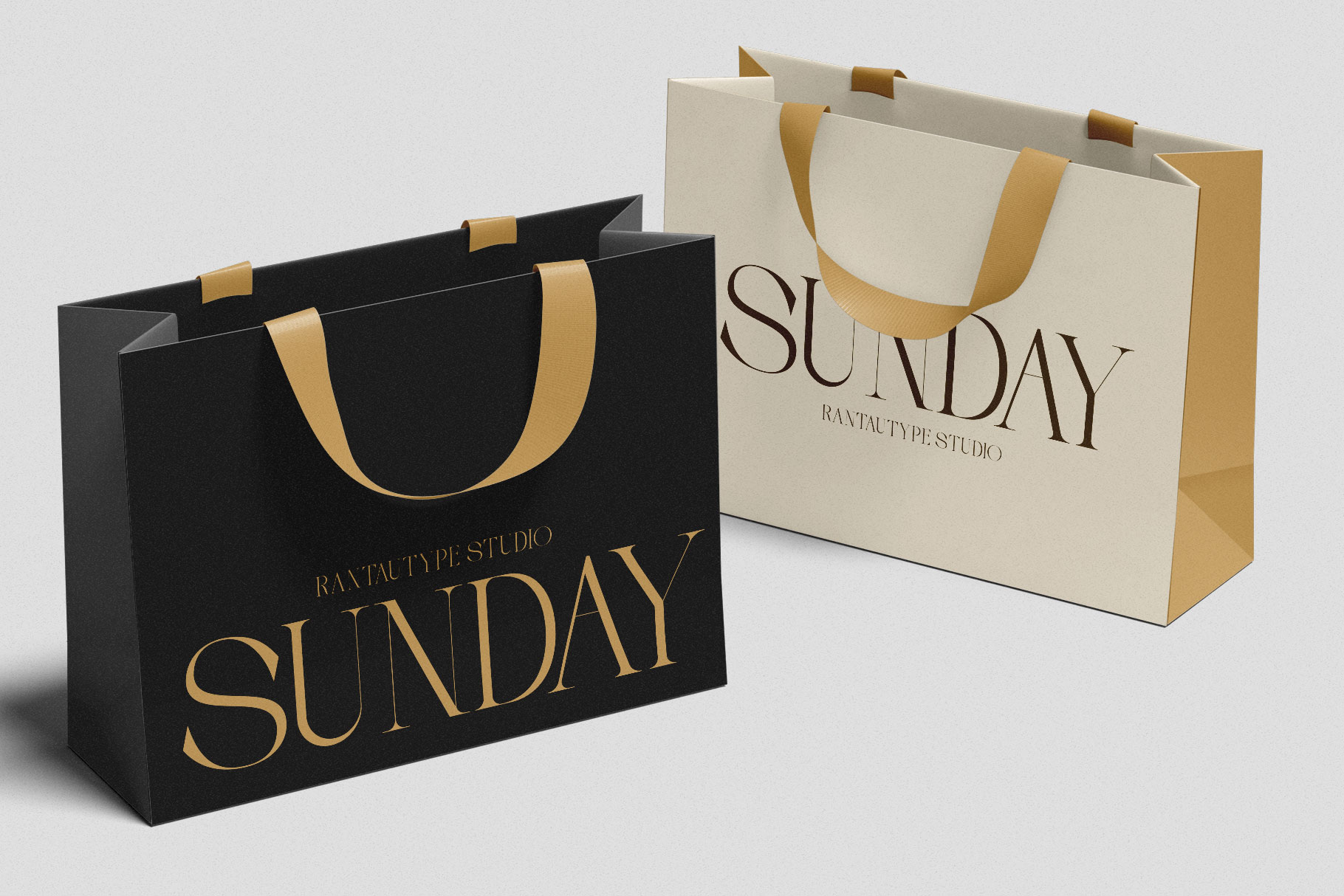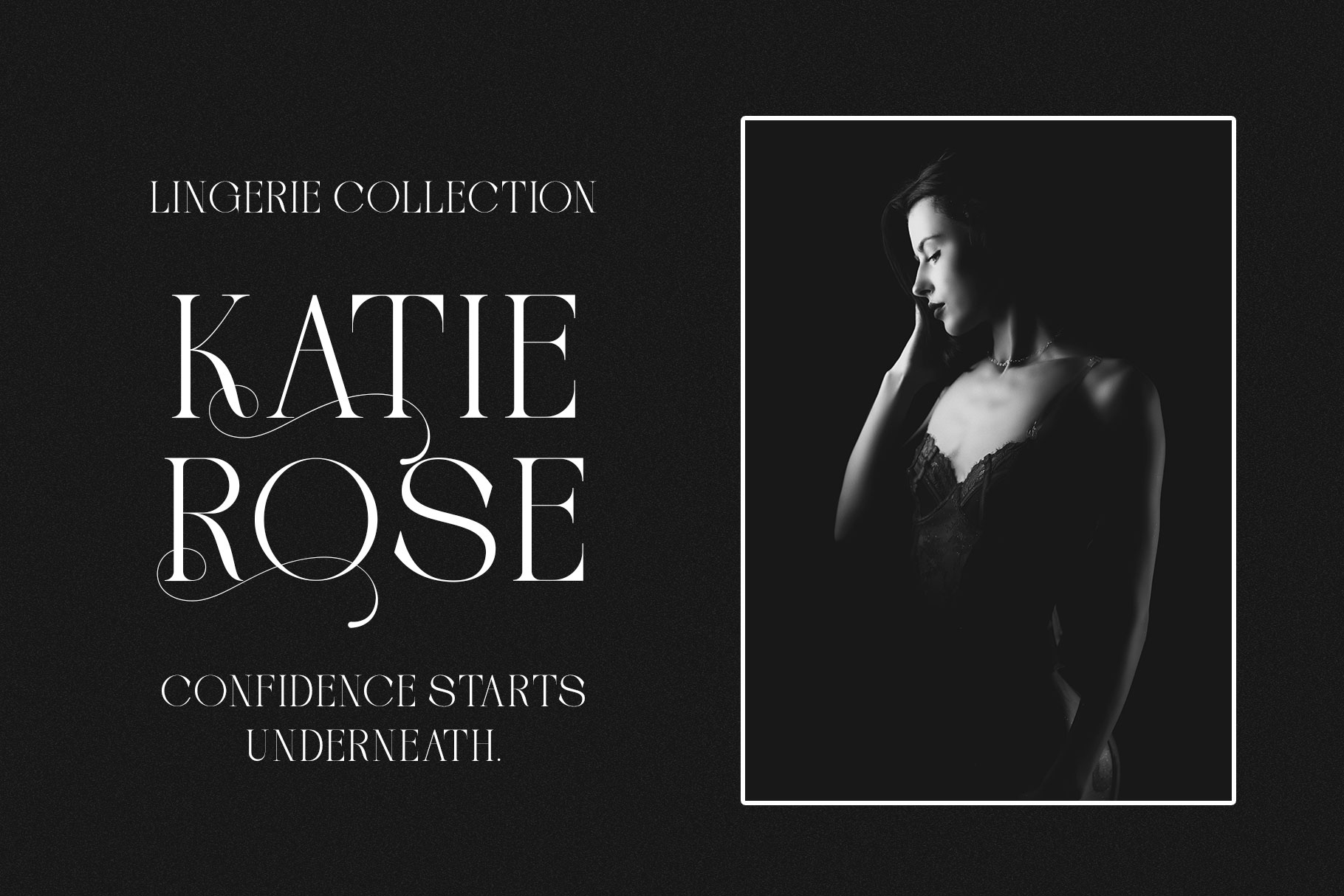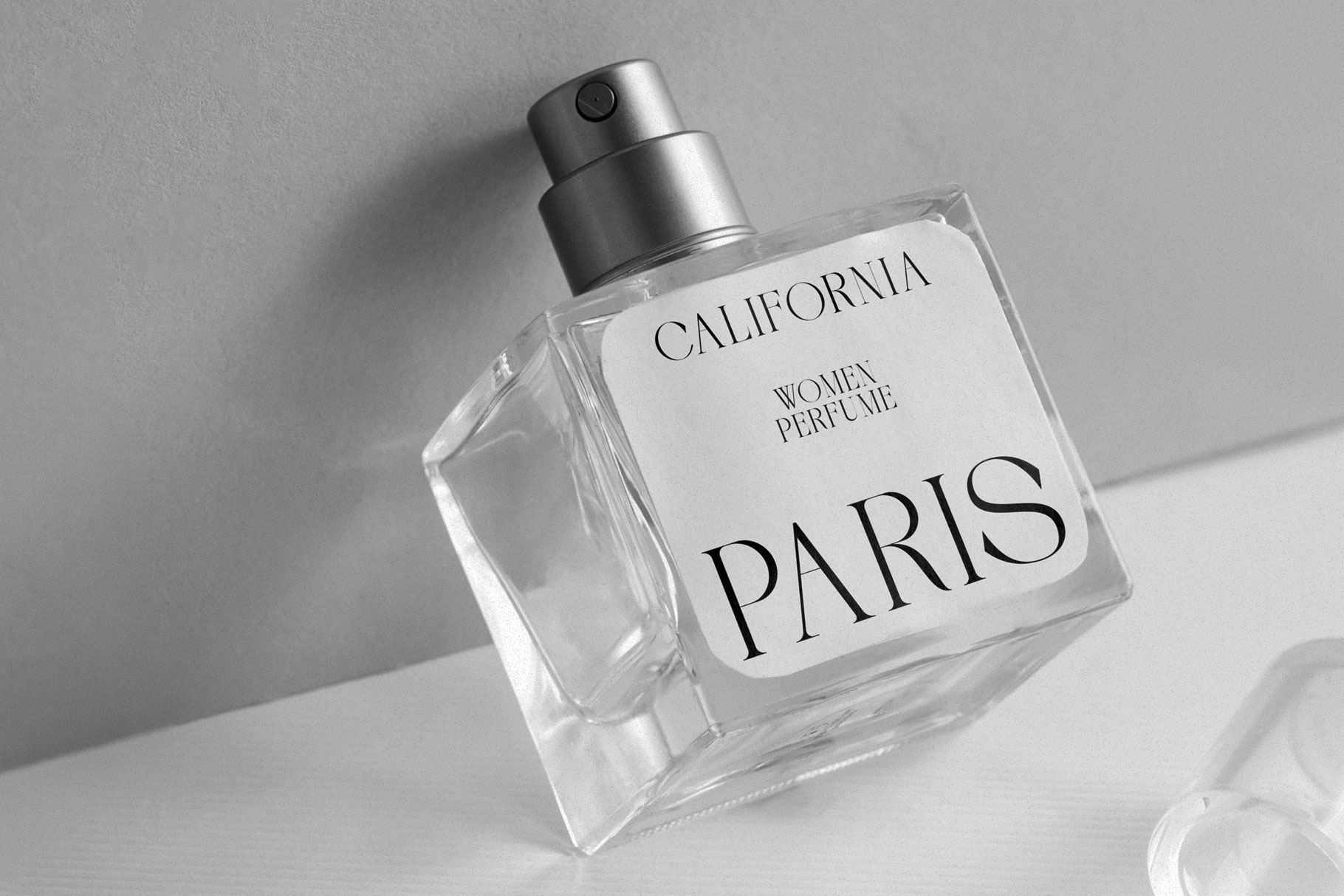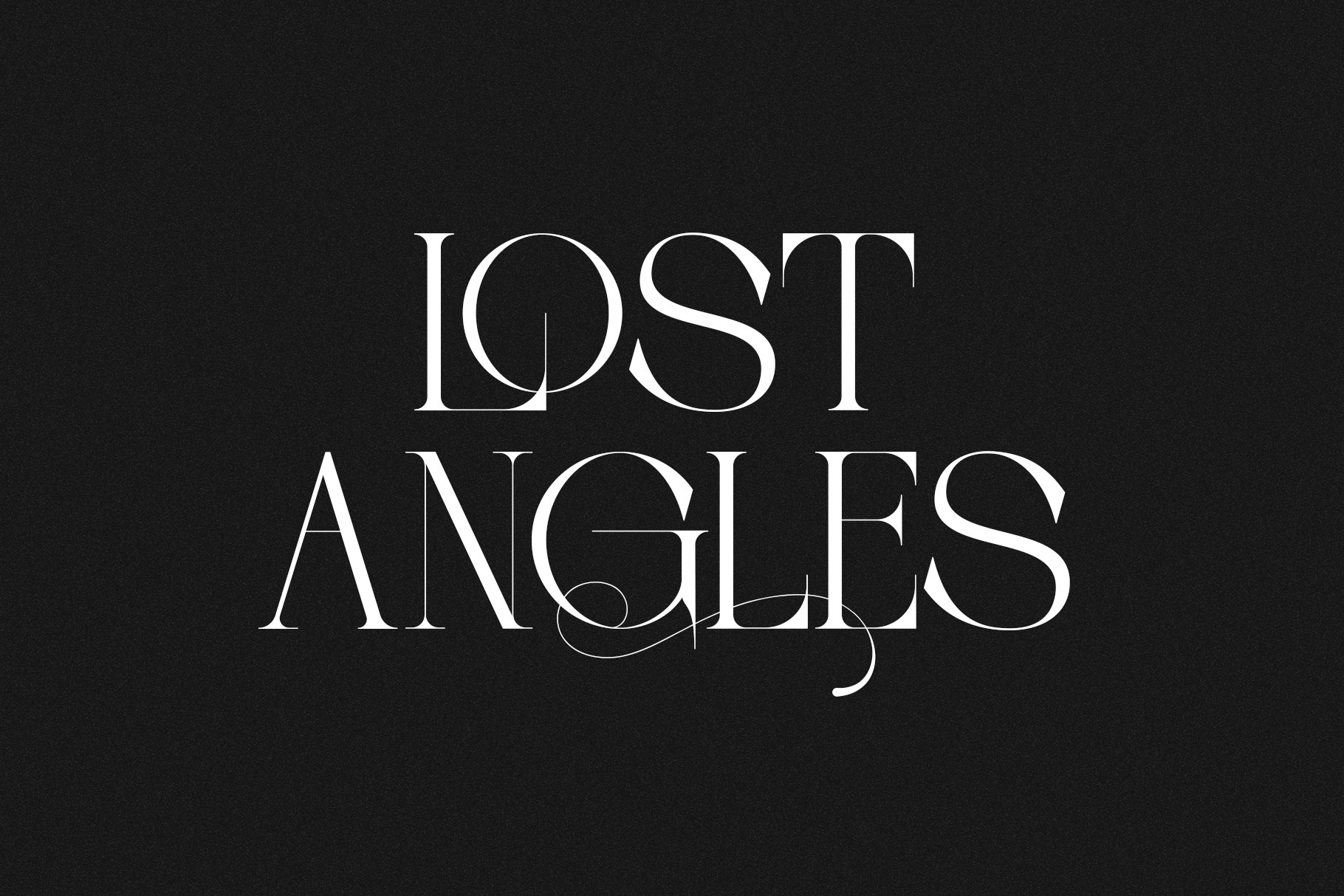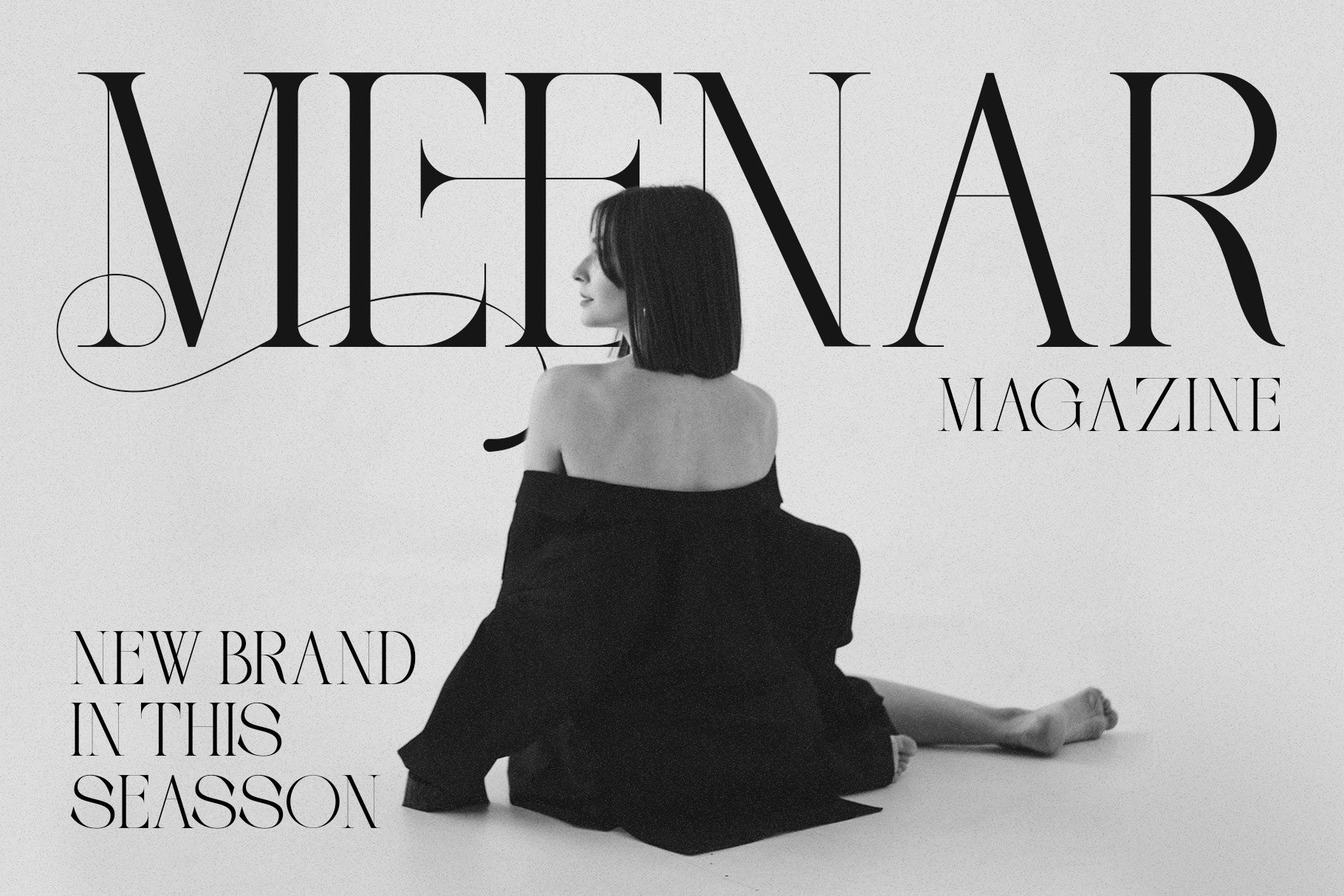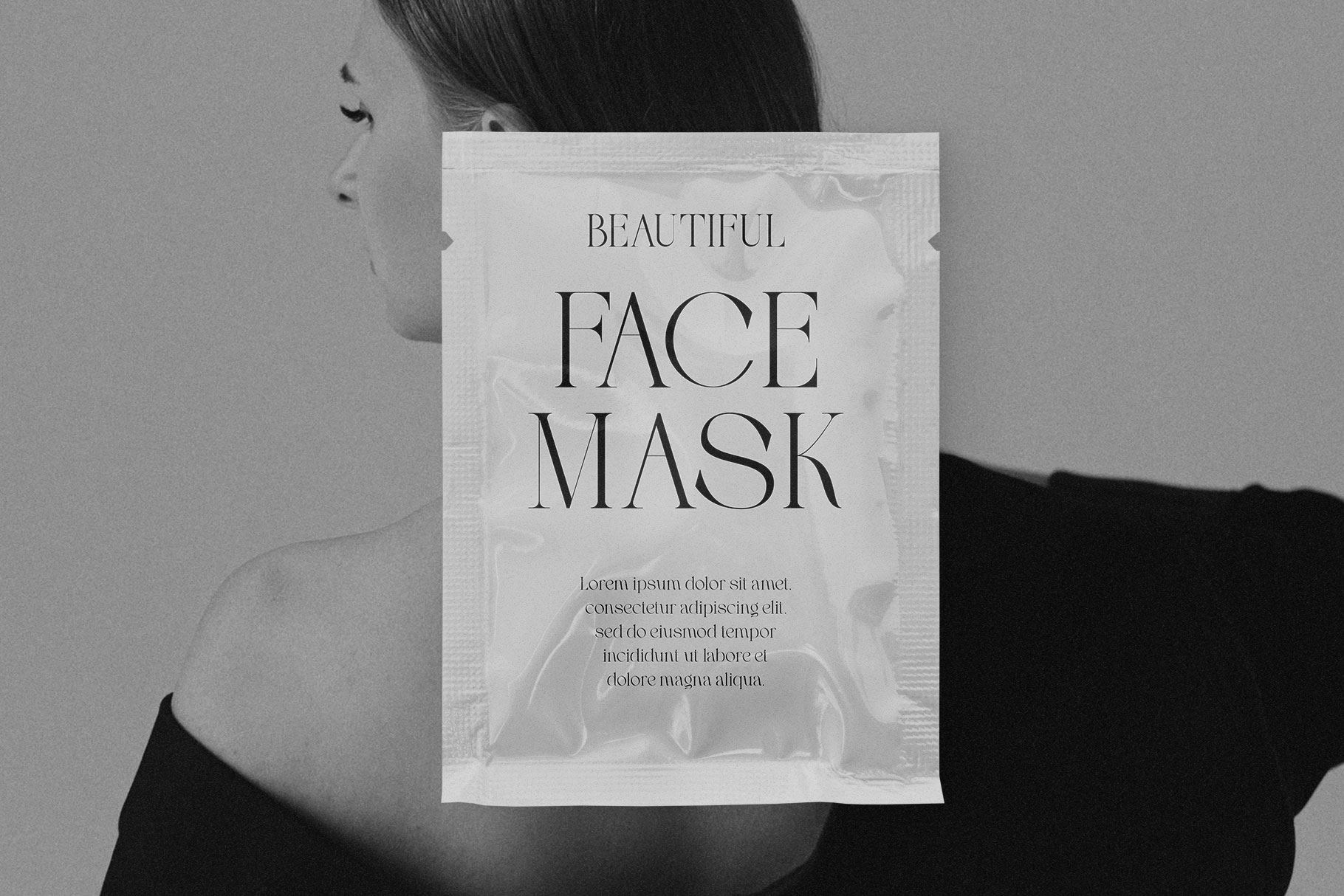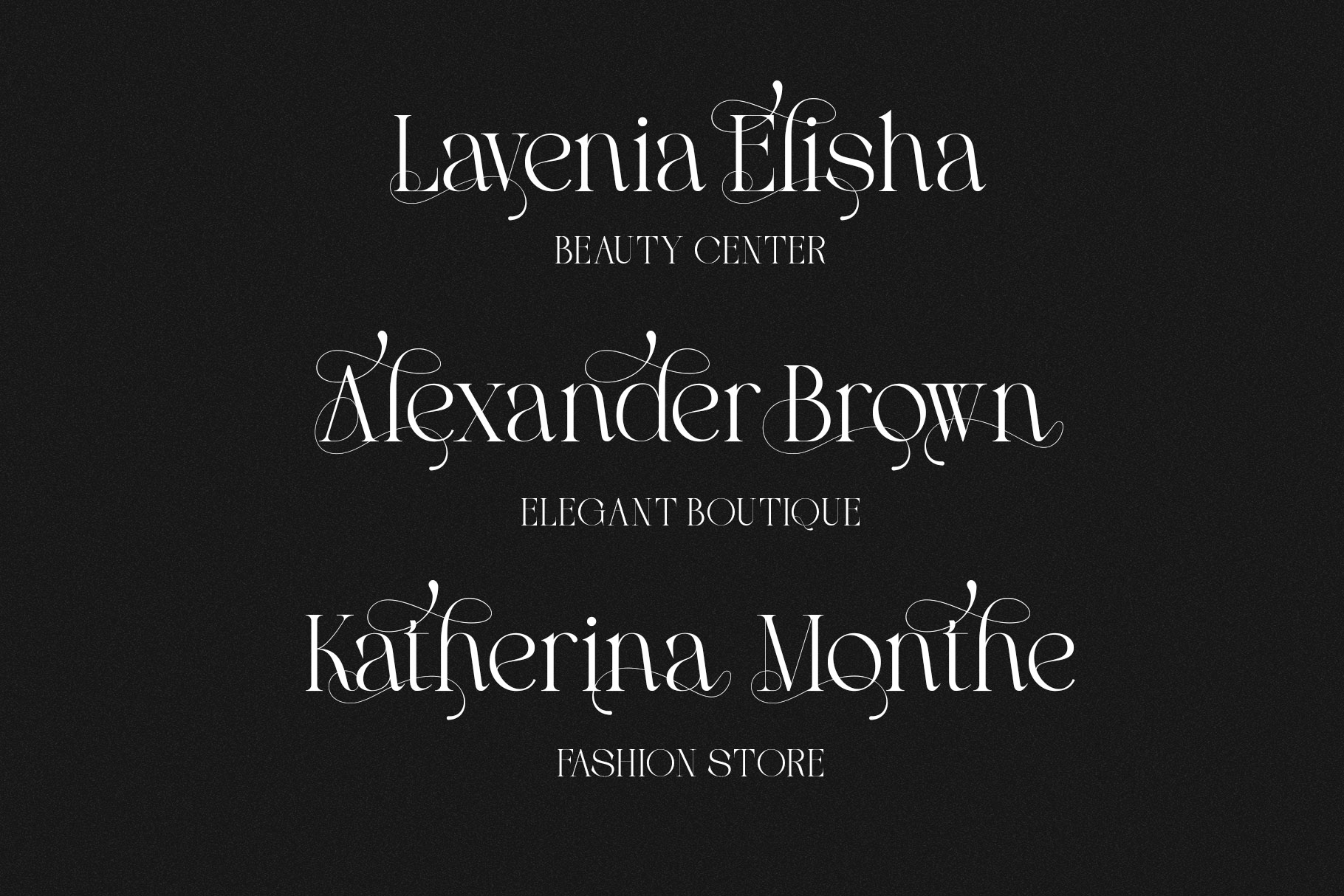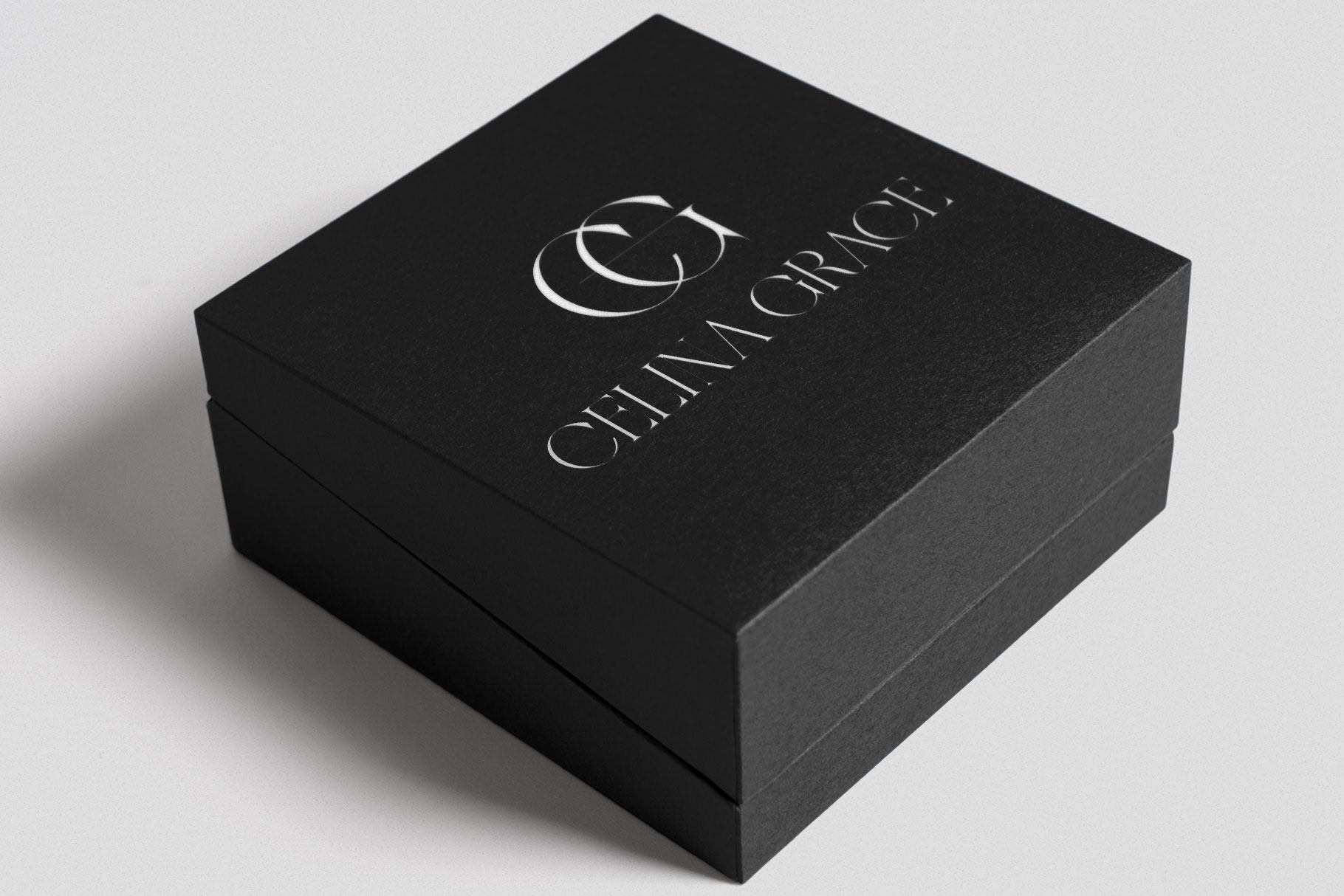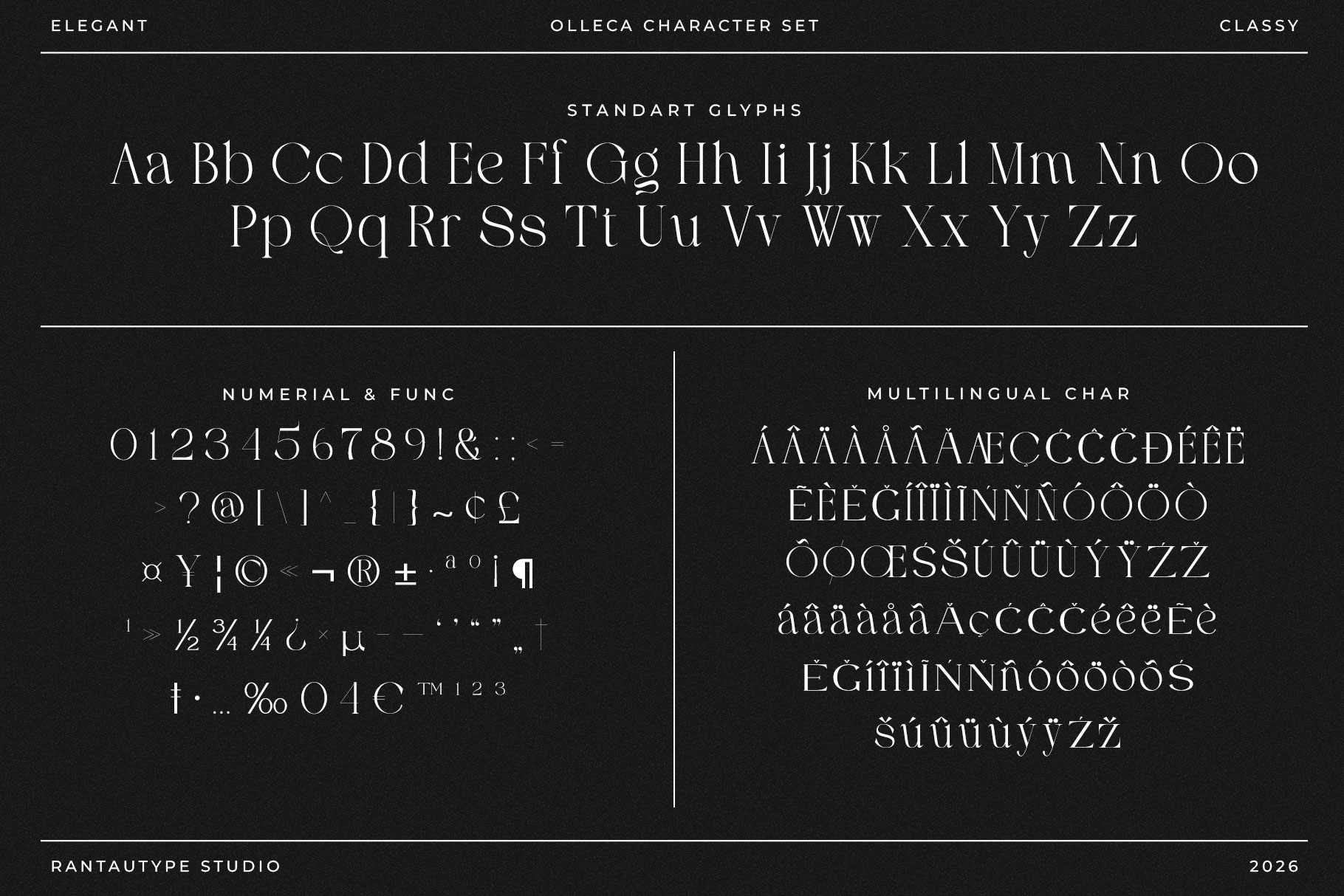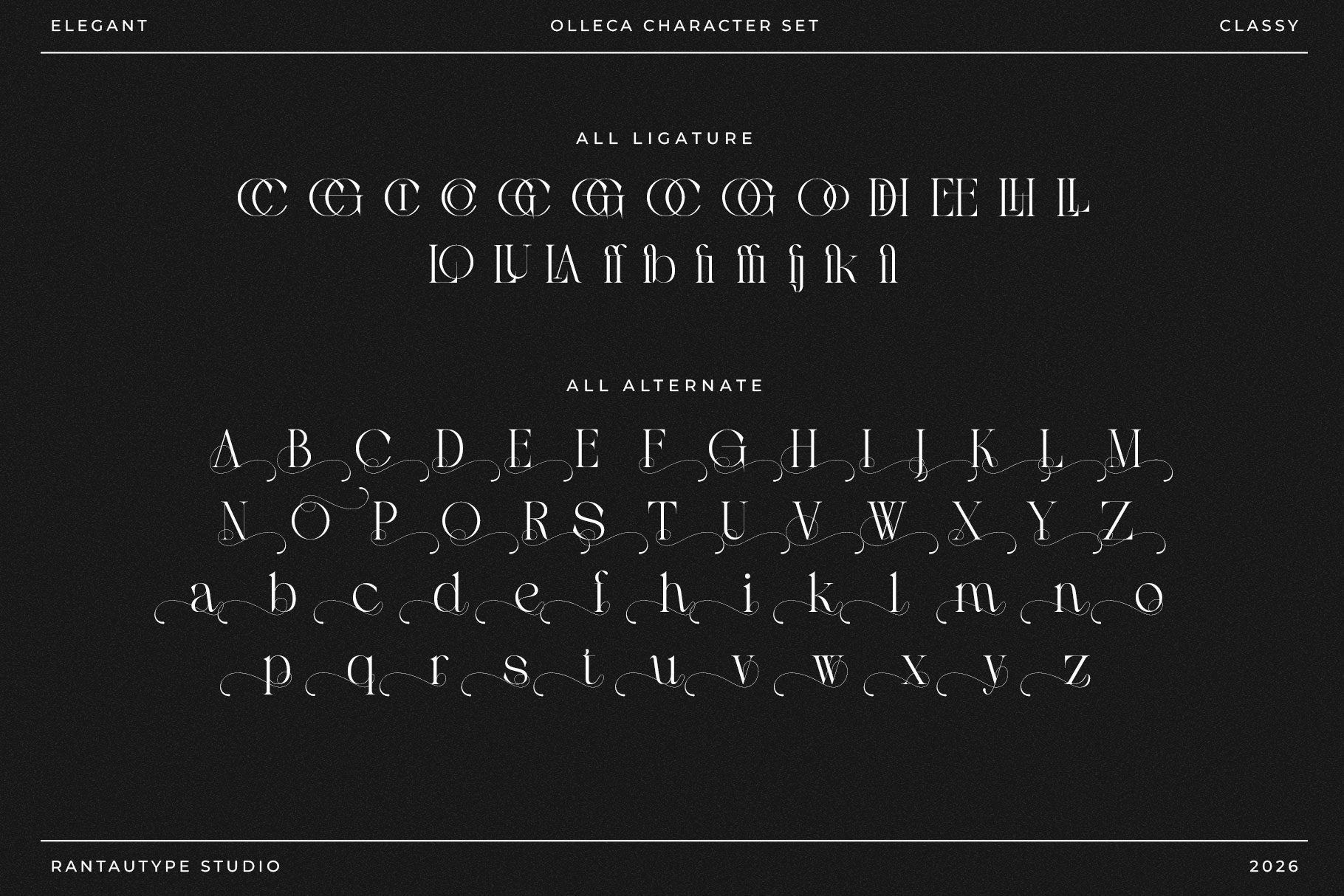
Olleca Elegant Classy Serif Font
Olleca is elegant serif font embrace grace and minimalis shape.Olleca is a perfectly choice for any creative endeavor, creating, modern, lifestyle design such as logotype, title, cover, branding, invitations, wedding designs, display and magazine, social media posts, advertisements, printed quotes, product packaging, corporate brand, product designs, labels, photography, watermarks, special events and any other project with luxury touch.